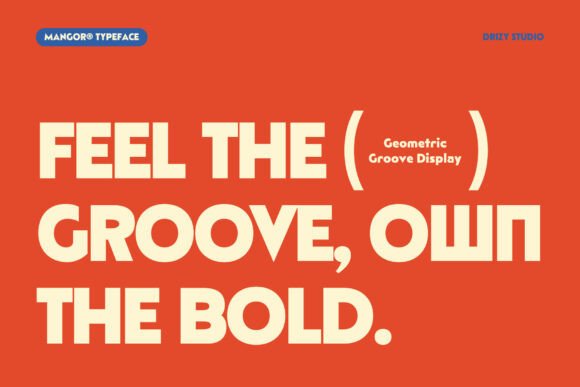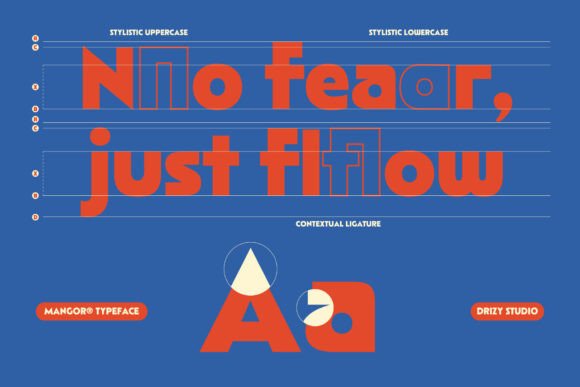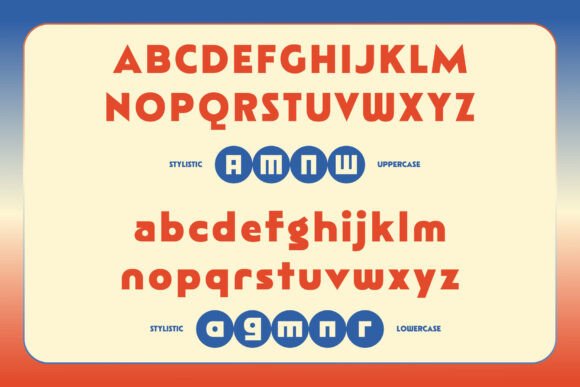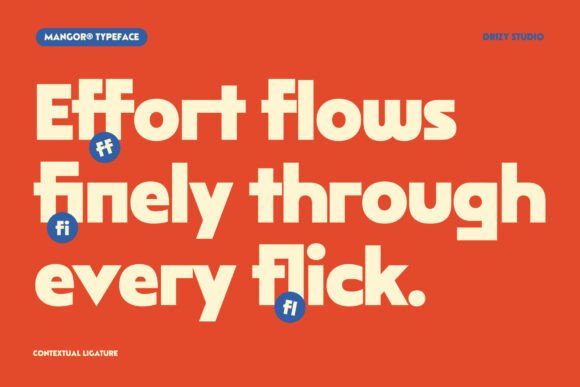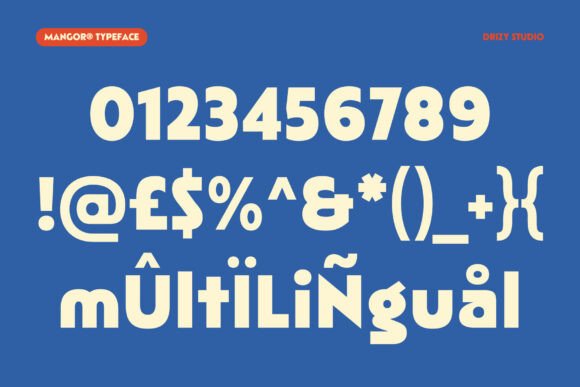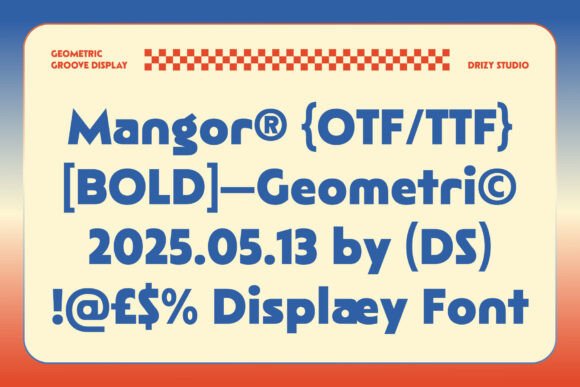
Introduction to Mangor Font
Have you ever found yourself stuck in a creative rut, desperate for that one design element to bring your project to life? I know I have – it’s like the missing beat in a song that just won’t quite sync up. But what if I told you there’s a font out there that can be the catalyst for your creative breakthrough? Enter the Mangor Font, a high-quality design resource that’s been making waves in the world of typography.
This bold and geometric display font pulses with retro-futuristic energy, perfect for designs that demand attention and movement. With its clean, angular lines and rhythmic curves, Mangor is the perfect addition to any creative project. Whether you’re working on a free download or a high-end commercial design, Mangor’s versatility makes it a valuable asset for designers of all levels.
- Features a unique, modern design with a mix of clean lines and elegant curves
Honest Review: Mangor Font
I recently had the chance to experiment with the Mangor Font for a creative project, and I must say it’s a high quality design resource that can elevate any design. This free download has a unique and modern aesthetic that can add a touch of sophistication to any project.
- What works well: ✨ The Mangor Font’s versatility and wide range of styles make it a great choice for various creative projects. It’s also available in a transparent background option, which is perfect for designers who need to add a touch of texture and depth to their designs.
- What works well: ✨ The font’s clean and minimalist design makes it easy to read and understand, even in large blocks of text.
- ⚠️ The font may not be suitable for very small or large text sizes, as it can become difficult to read.
- ⚠️ The Mangor Font is a relatively new design resource, so it may not be as widely supported or compatible with older software or systems.
Overall, I’m impressed with the Mangor Font and would definitely recommend it as a design resource for creative projects. Its high quality and unique design make it a valuable addition to any designer’s toolkit.
Mangor Font is perfect for creating invitations, posters, and social media graphics. It’s also great for adding a touch of elegance to your presentations and documents. With its high-quality design and transparent background, Mangor Font is a valuable resource for any creative project.